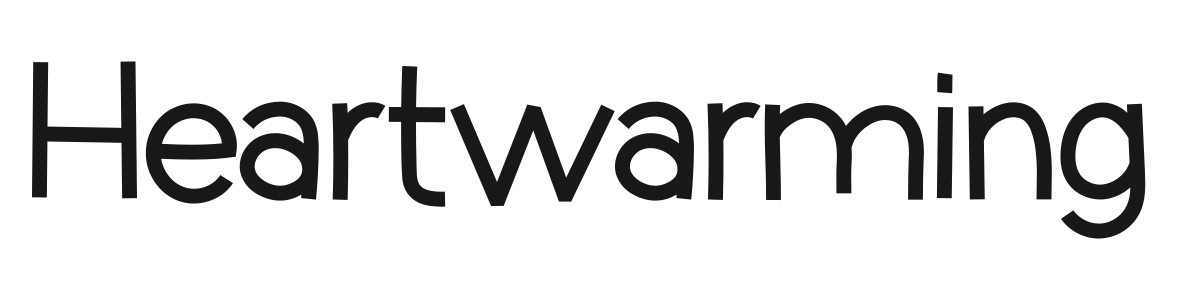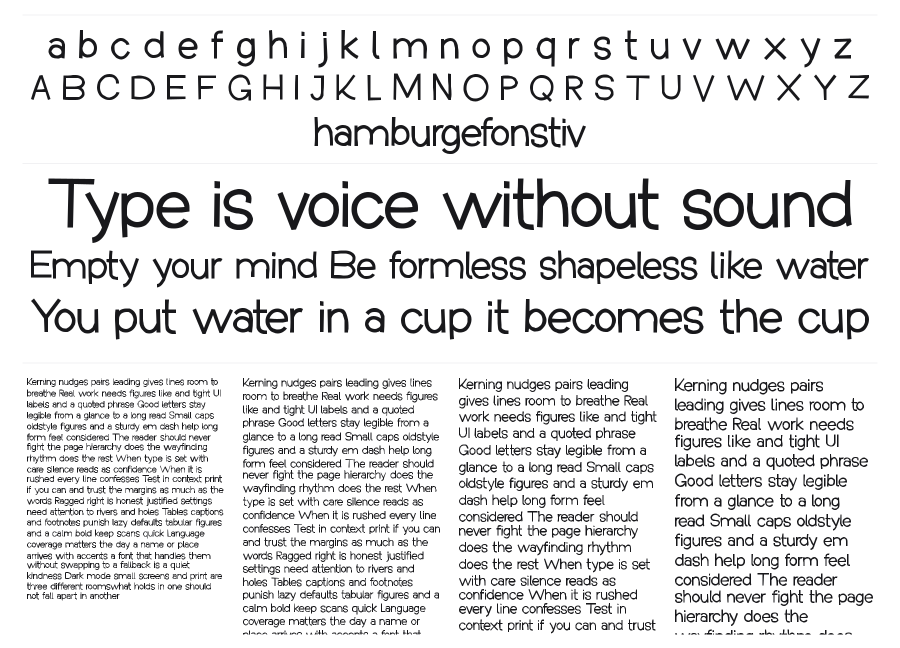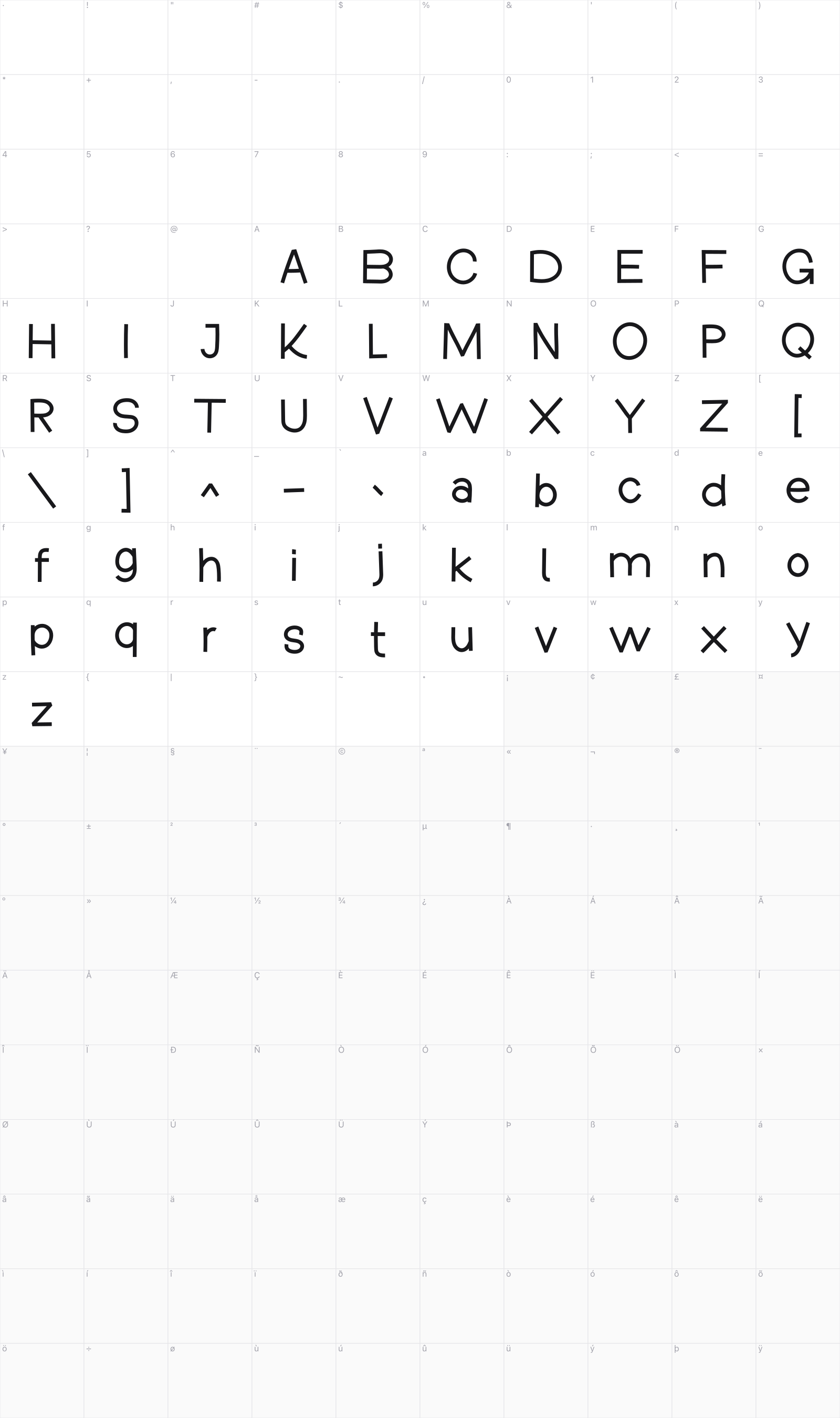
Heartwarming
Heartwarming is a geometric sans-serif with softly rounded terminals and a warm, even stroke weight that keeps it from feeling sterile. It sits in the space between precision and friendliness, making it useful for brands that want clean structure without coldness. The open apertures and smooth bowls give it good legibility at headline and medium display sizes.